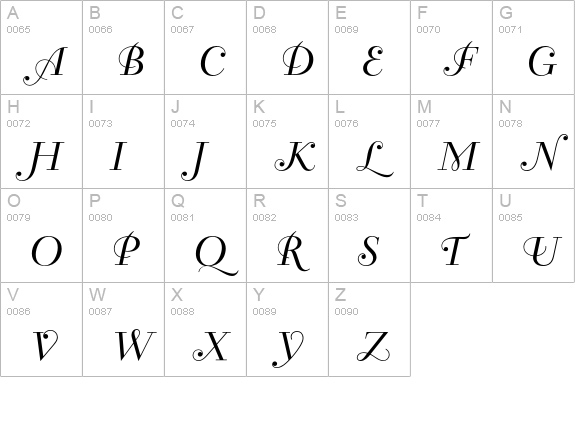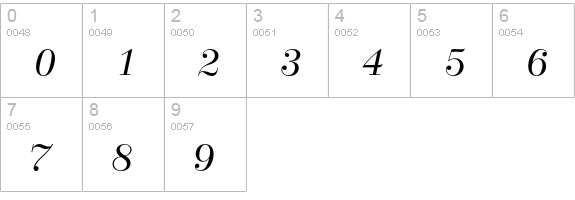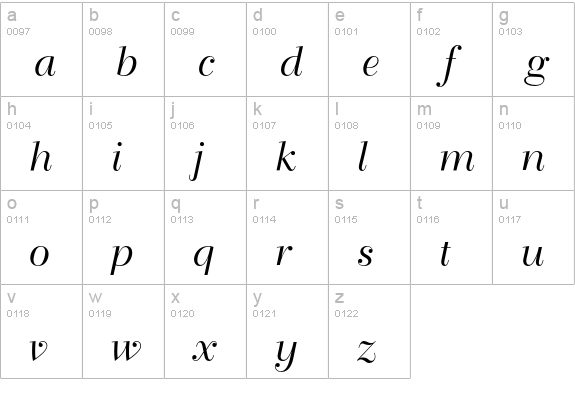
Bellevue Font Details
Introducing Bellevue font, a sleek and modern typeface designed to make a statement. With its clean lines and elegant curves, Bellevue is perfect for adding a touch of sophistication to any project. Whether you're creating a logo, designing a website, or crafting a poster, this versatile font is sure to impress. The best part? Bellevue is completely free to download at FontsMarket.com. Yes, you read that right - you can access this stunning font at no cost, making it an affordable and accessible option for all your design needs. Don't miss out on the opportunity to elevate your work with Bellevue font today!